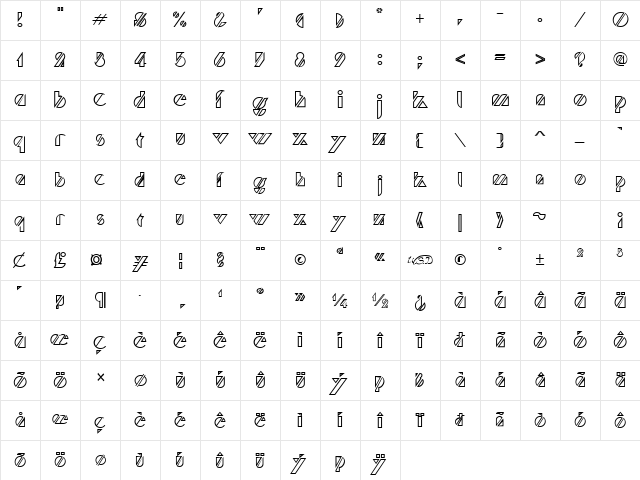
Trufflette normal Free Font
Trufflette normal
Style: normal
Year: 1995 (Fri, 8th Sep 1995)
Design Context for Trufflette
Trufflette is a composed and adaptable typeface that performs quietly and consistently across a wide range of design contexts.